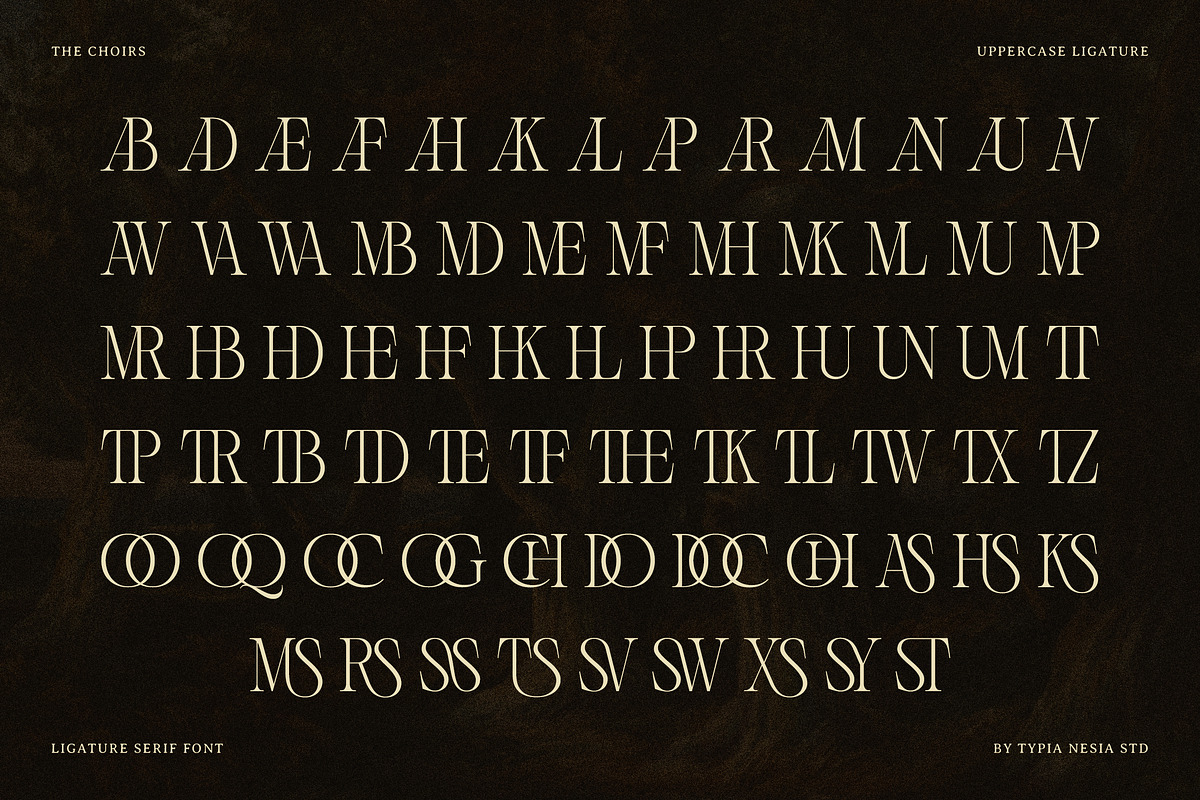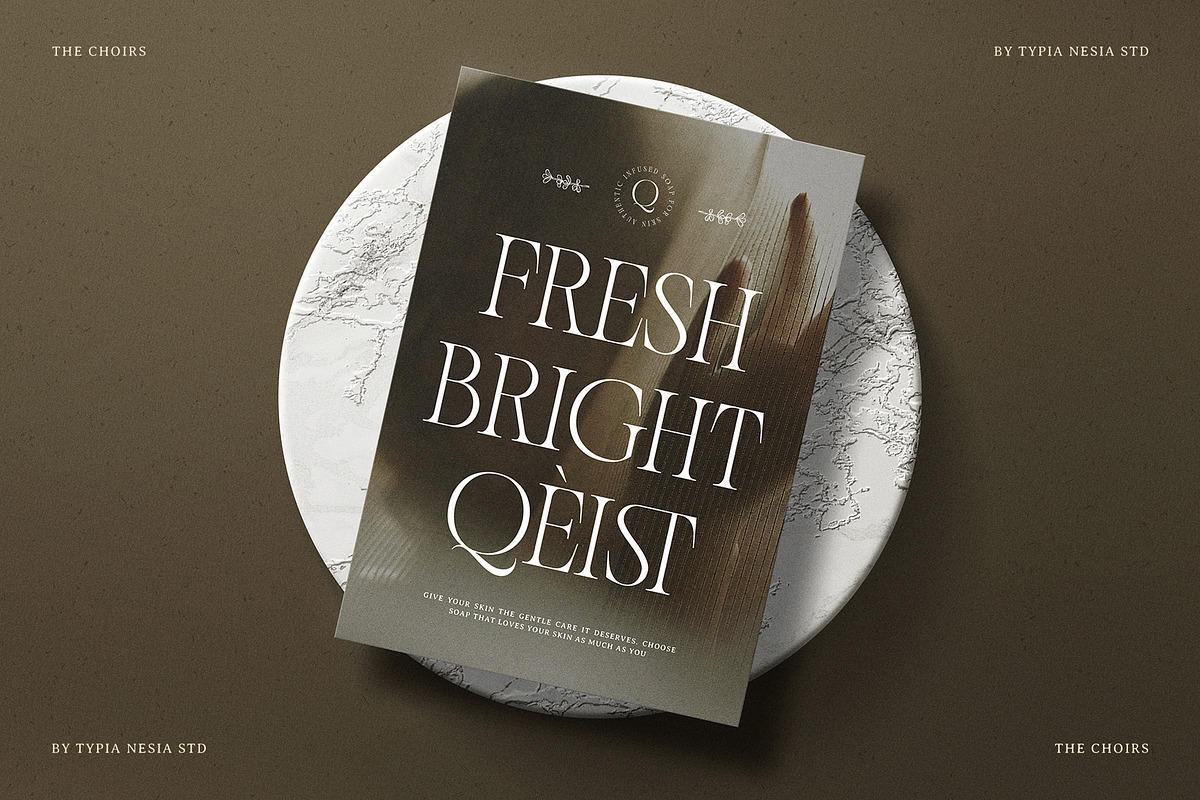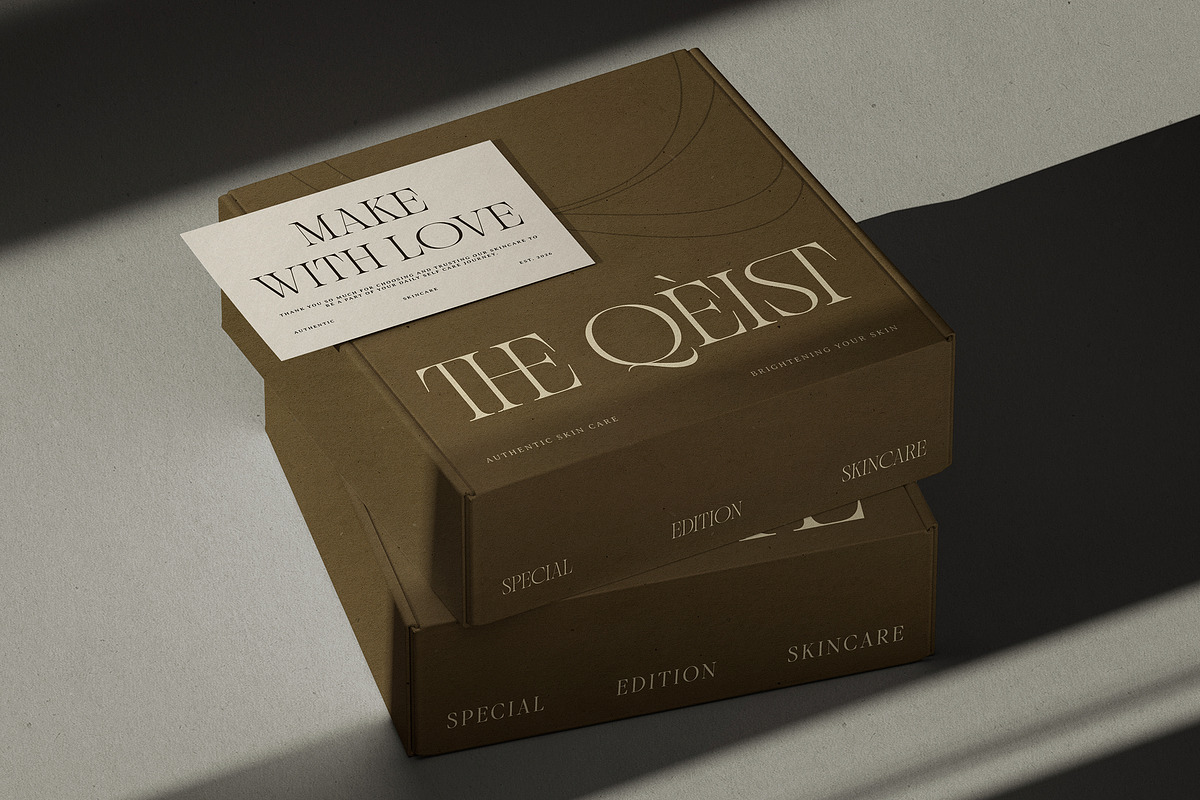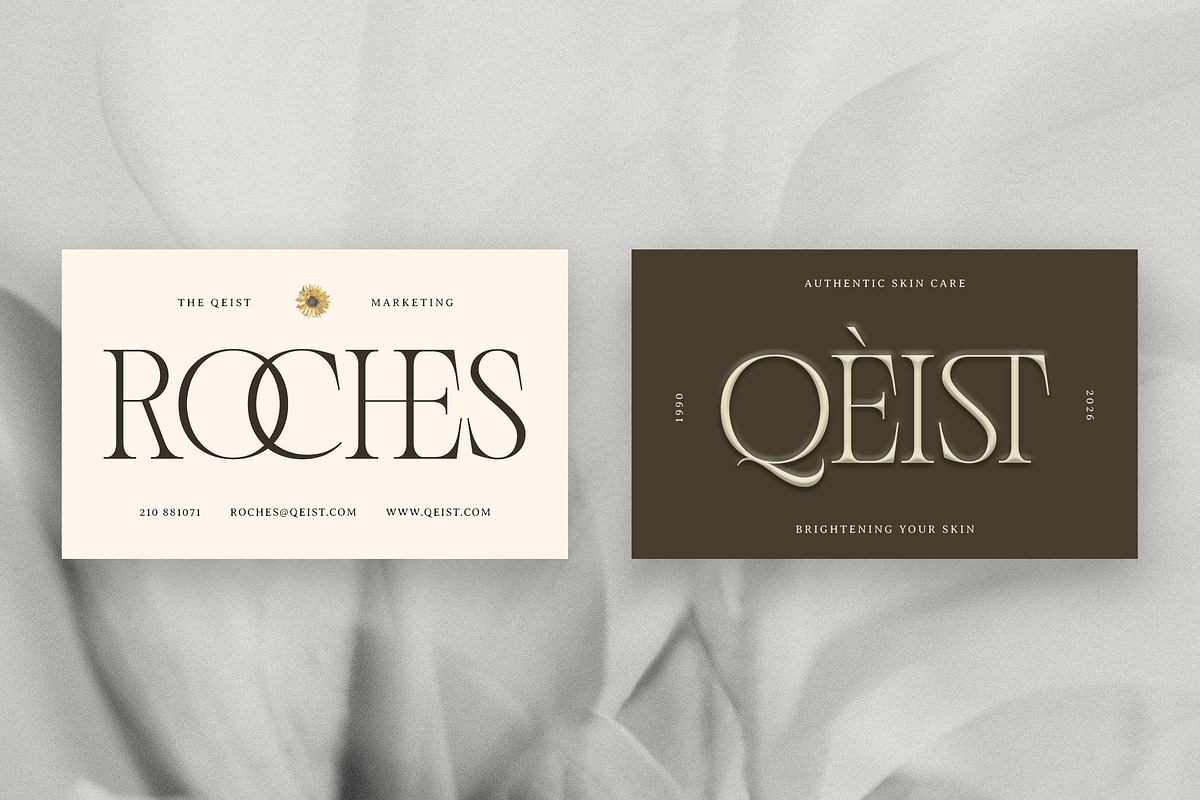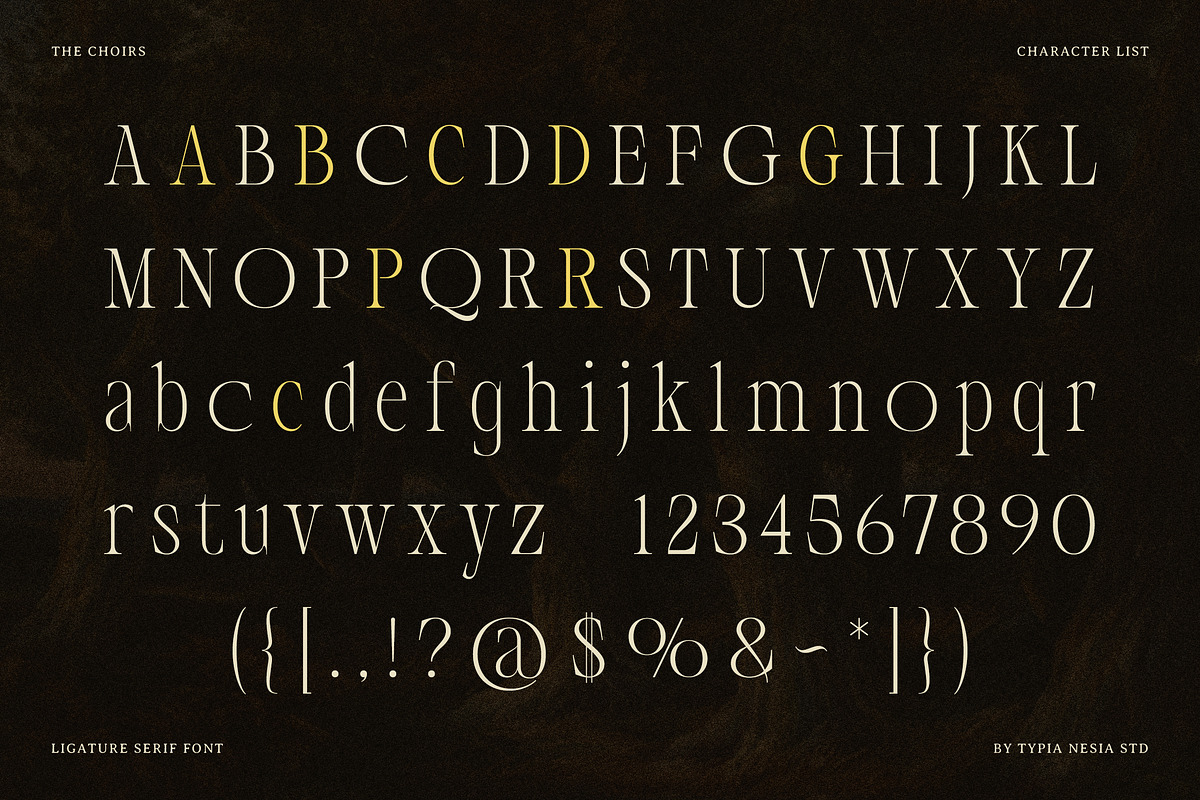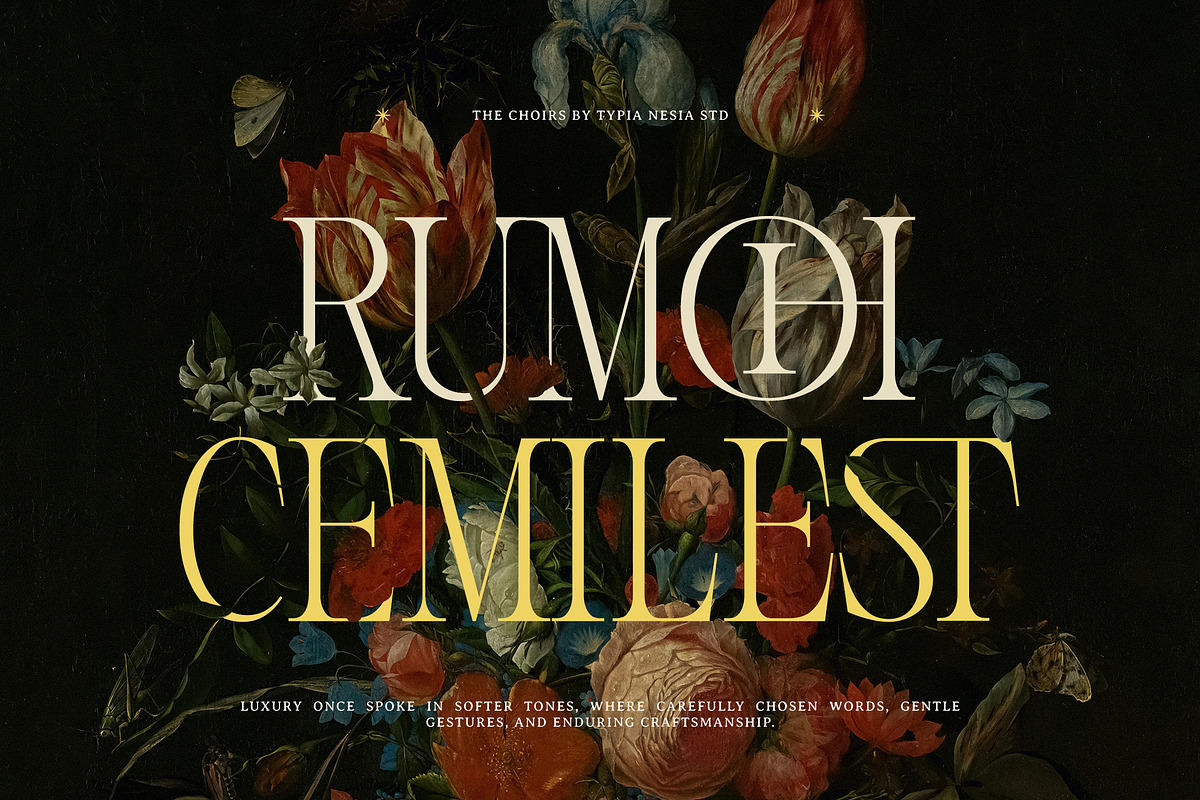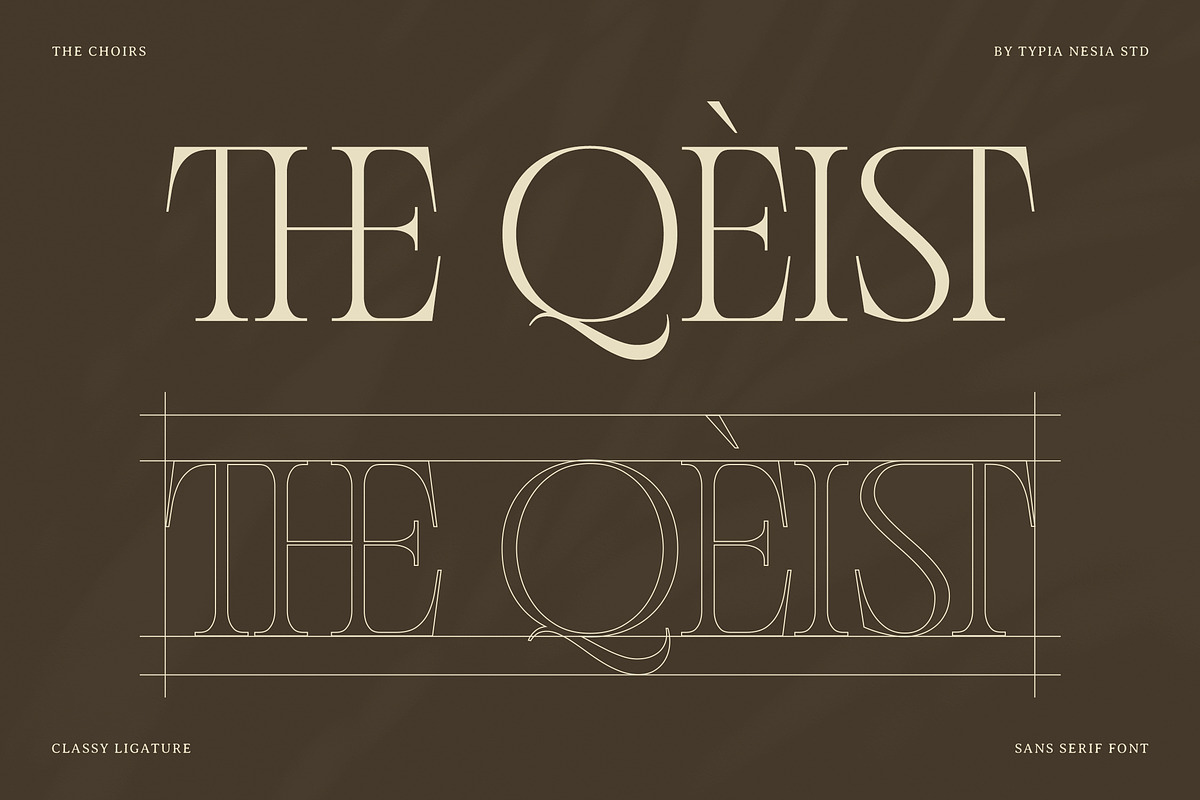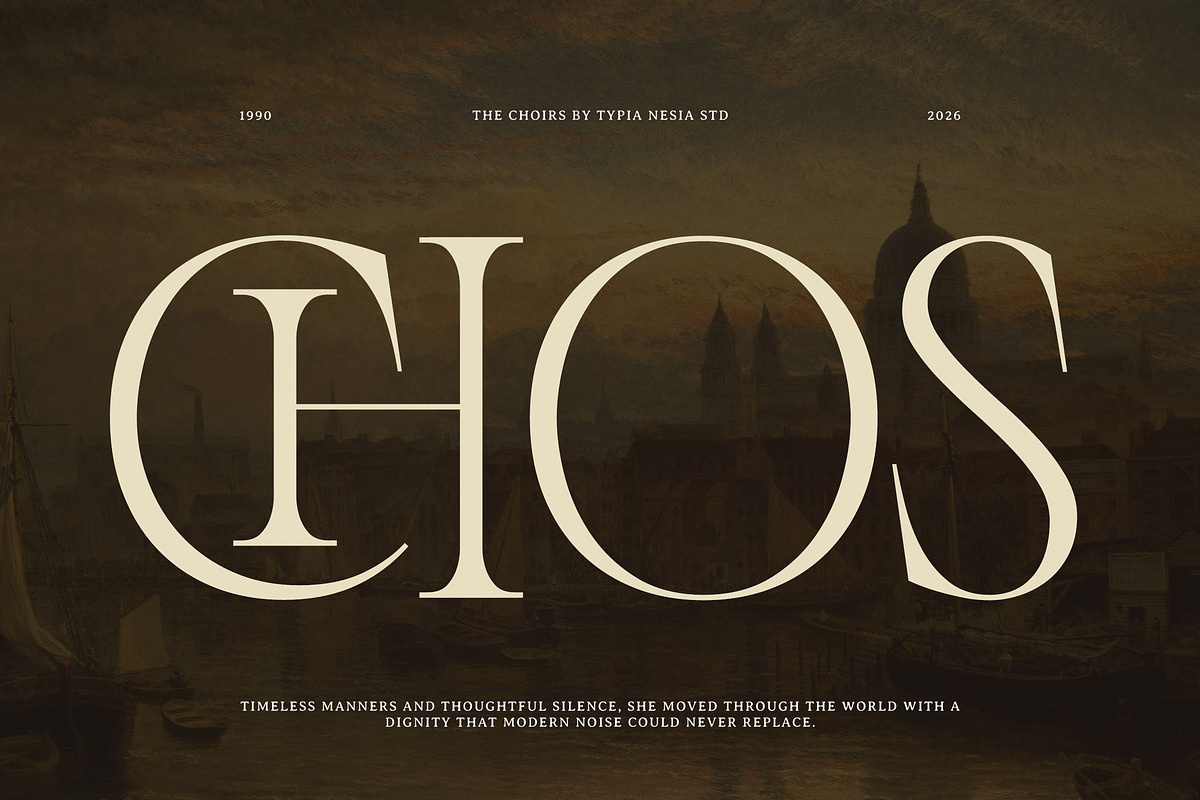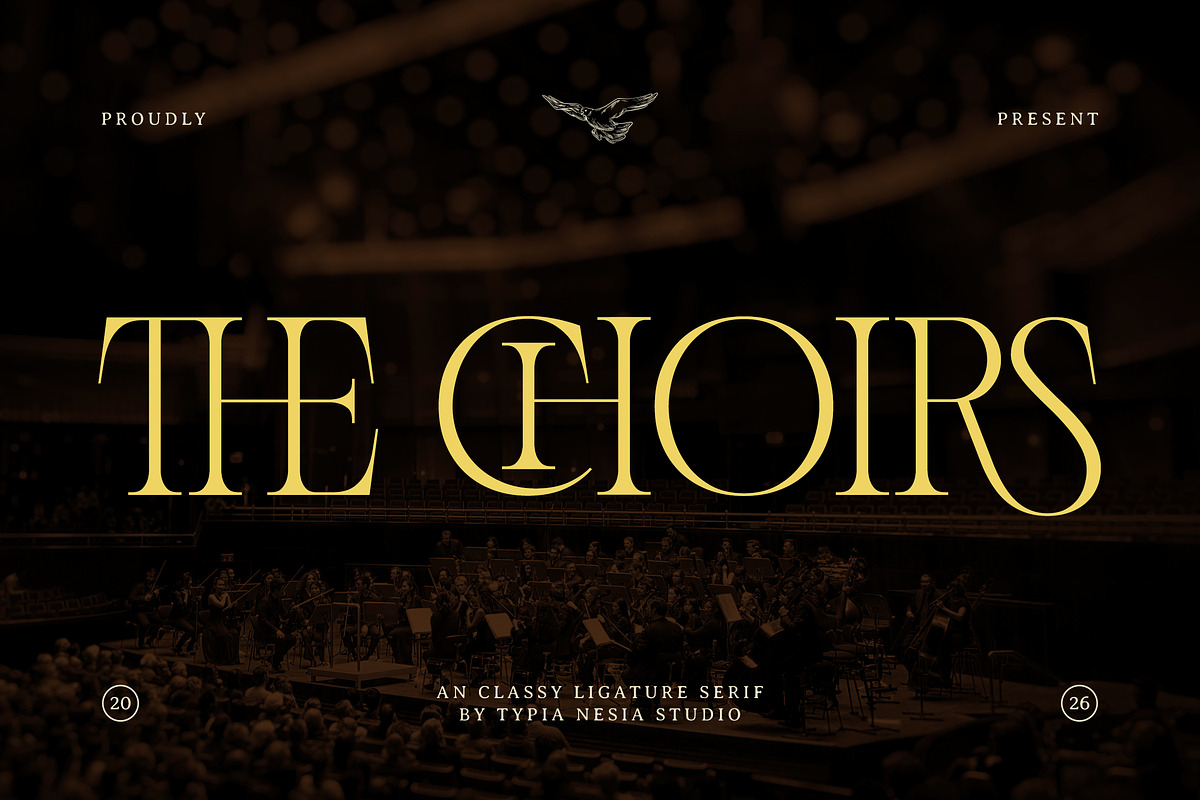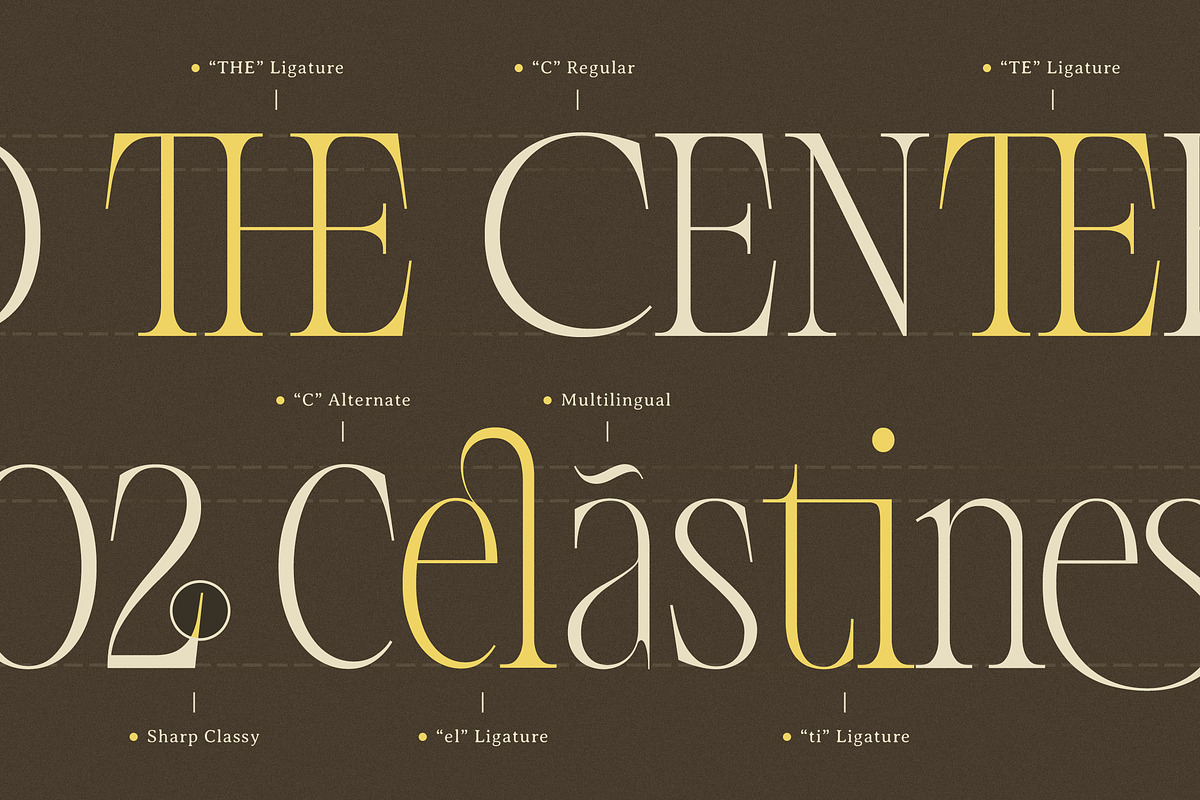
The Choirs - Beauty Elegant Ligature
The Choirs - Beauty Elegant Ligature Serif - Modern Fantasy Luxury & Royal Display Font
The Choirs is a modern, elegant luxury serif font crafted to express timeless beauty and refined sophistication. Designed with delicate curves and stunning ligature details, this typeface blends classy, feminine, and royal character into every letterform. Its graceful serif structure creates a harmonious balance between modern aesthetics and fantasy-inspired elegance, making it perfect for logo design, wedding invitations, cosmetic branding, fashion editorials, skincare packaging, luxury posters, premium product packaging, and any project that requires a touch of luxury and exclusivity. With its stylish ligatures and refined proportions, The Choirs transforms ordinary typography into a truly elegant visual statement.